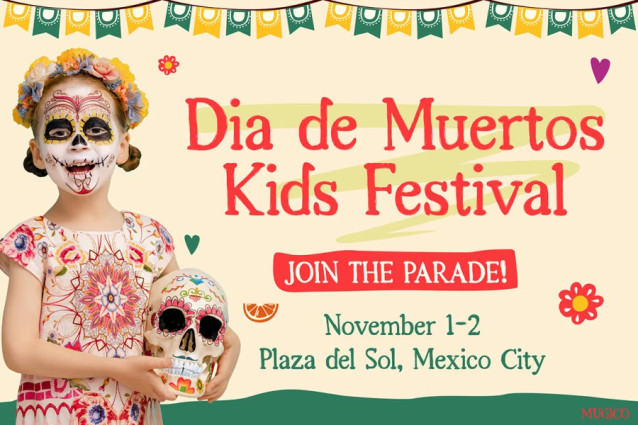
Mugico Font brings the spirit of joy, colors, and celebration right into your creative projects. Inspired by the festive traditions of Mexico — from Día de Muertos to Cinco de Mayo — this font radiates happiness and bold charm. Each letter feels alive, hand-crafted with cheerful strokes, rounded edges, and a delightful rhythm that instantly grabs attention. Its bright, artistic style makes it stand out among other kids’ fonts, adding both character and warmth to your design. Whether you’re creating children’s festival posters, classroom art, or playful invitations, Mugico adds that magic spark that turns words into smiles.
The charm of Kids Font Mugico lies in its storytelling aesthetic — every curve and serif feels like it’s dancing. It’s designed not just to decorate but to communicate happiness and imagination. The font feels dynamic yet easy to read, perfect for colorful visual storytelling. From birthday banners to storybooks, every design becomes a small fiesta full of creativity.
Kids Font Mugico is ideal for designers, educators, and creators who love to work with cheerful and imaginative visuals. It’s perfect for children’s brands, party event organizers, toy packaging, and school projects. Teachers can use it to make learning materials more fun and engaging, while illustrators and digital creators will love how it pairs perfectly with playful themes and bright palettes.
It’s also an excellent choice for marketers looking to create festive campaigns that celebrate culture and happiness. Whether you’re designing for Día de Muertos Kids Festival, Cinco de Mayo Kids Fiesta, or a cheerful “Happy Birthday” poster, Mugico helps your message shine with personality. Bloggers and Etsy sellers can also use it to craft eye-catching logos, greeting cards, or event invitations that feel joyful and handcrafted.